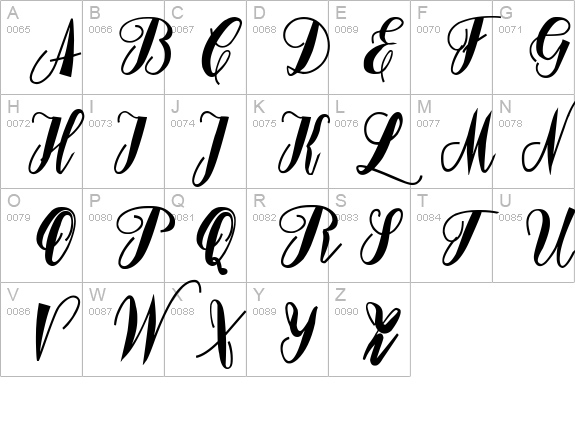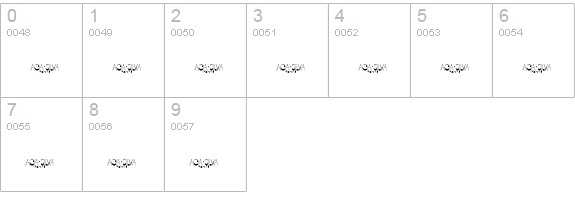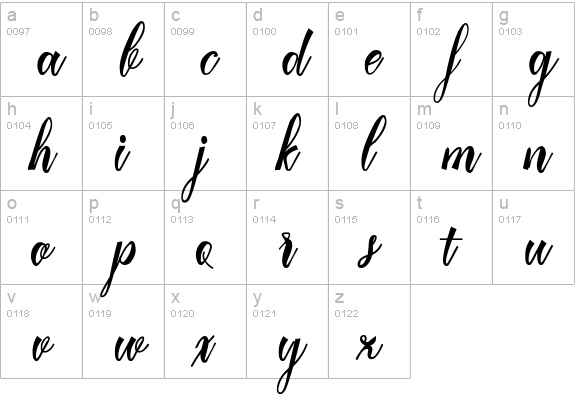
Mavblis Demo - Free For Persona Font Details
Mavblis Demo - Free For Persona font is a stunning typeface that embodies elegance and versatility. With its unique design and exquisite curves, this font is perfect for adding a touch of sophistication to any project. What sets Mavblis Demo apart is its availability as a free download at FontsMarket.com. Yes, that's right! This incredible font can be yours without spending a dime. Whether you are a student, a professional designer, or simply someone with a passion for typography, Mavblis Demo is freely accessible to all. Imagine having the power to create eye-catching logos, captivating headlines, or stylish invitations, all at no cost. This font allows you to do just that. Its clean and modern aesthetic makes it suitable for a wide range of applications, from branding projects to social media graphics. Downloading Mavblis Demo - Free For Persona font from FontsMarket.com is quick and effortless. Simply visit the website, locate the font, and with just a few clicks, it will be yours to use and enjoy. No hidden fees or restrictions, just the opportunity to enhance your designs with a stunning, high-quality typeface. So why wait? Take advantage of this incredible offer and elevate your creative projects with Mavblis Demo - Free For Persona font. Its timeless beauty and widespread availability make it a must-have for any designer or enthusiast. Download it today and let your creativity soar.